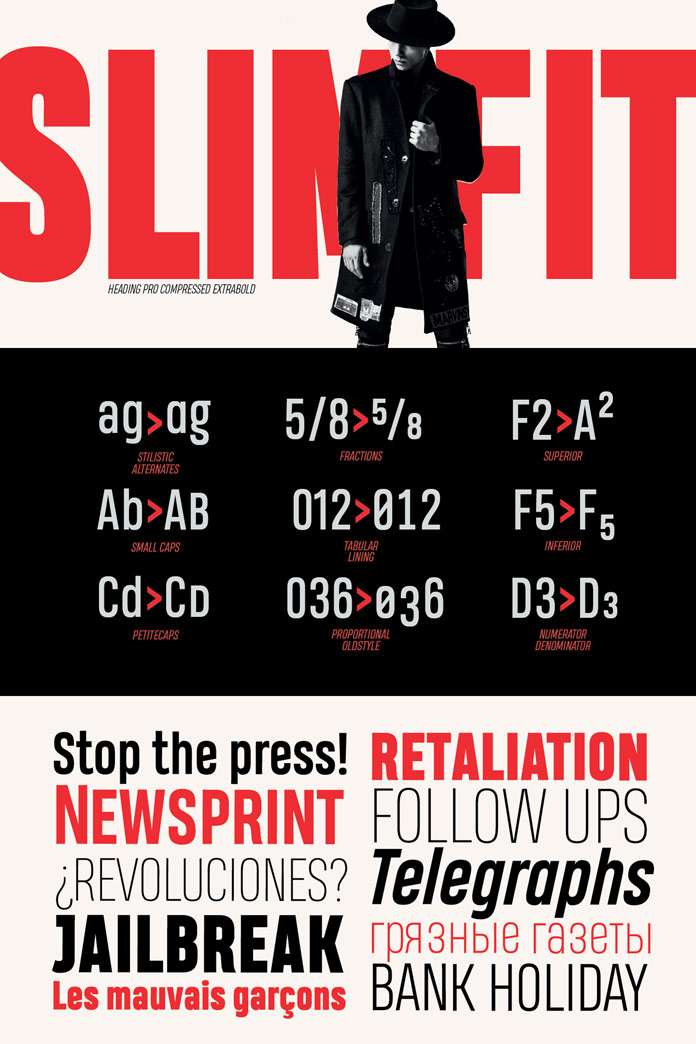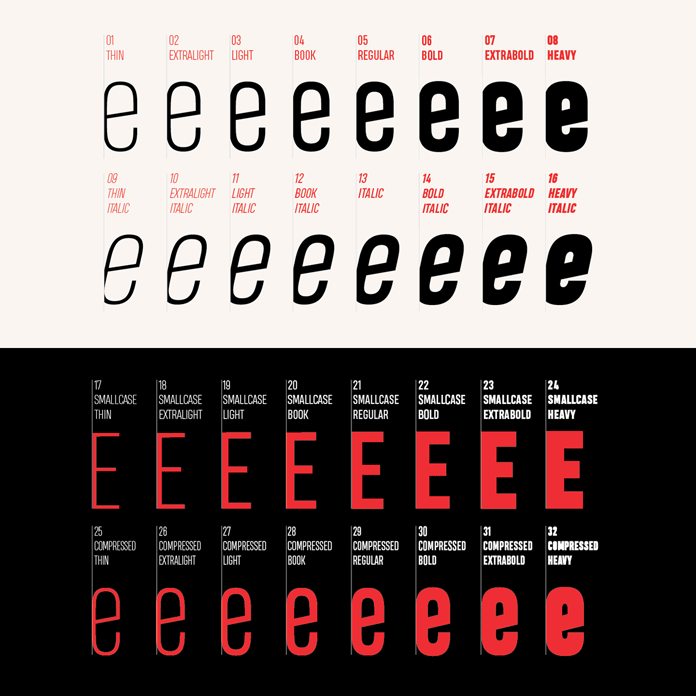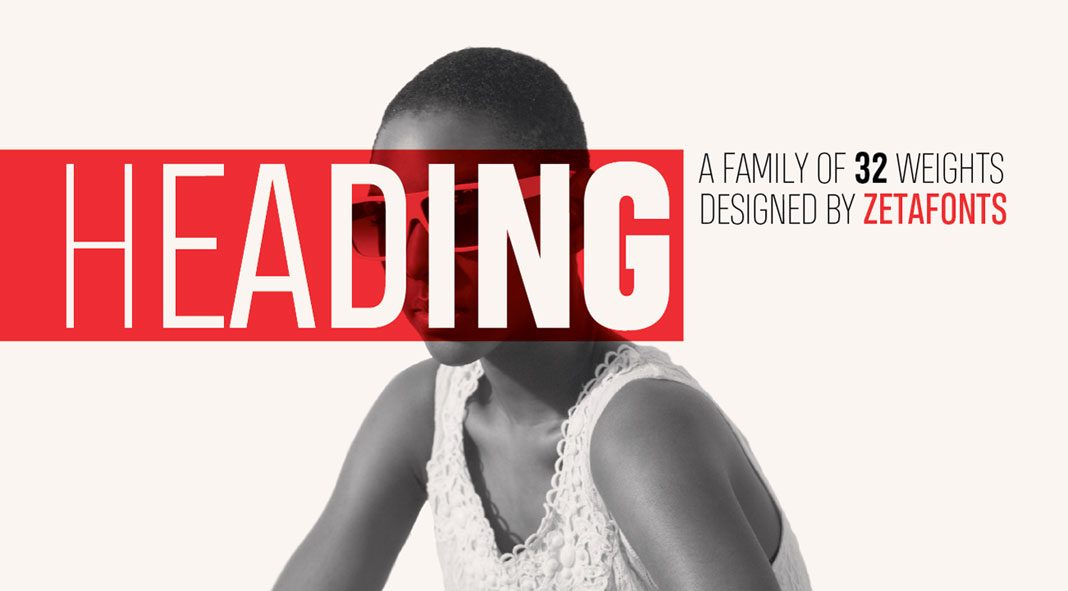
Heading Pro, a font family designed by Francesco Canovaro for Zetafonts.
This geometric condensed font provides great legibility and a powerful characteristic. It has been designed in 2017 by Francesco Canovaro for both print and web media. The Heading Pro font family is equipped with eight weights and matching Italics for each weight. In addition, it comes with a Small Caps variant and a Compressed variant, both consisting of eight weights ranging from thin to heavy, which results in a total of 32 weights. Thanks to its extensive character set, Heading Pro covers over forty languages including Latin alphabet as well as Greek and Cyrillic letters. It is a great choice for headlines, subheadings, and all cases of exuberant and excessive copywriting tasks. Equipped with a diverse list of OpenType features, this family is a great workhorse for all kinds of professional needs. To know more about this new font family from foundry Zetafonts, feel free to follow the link below.